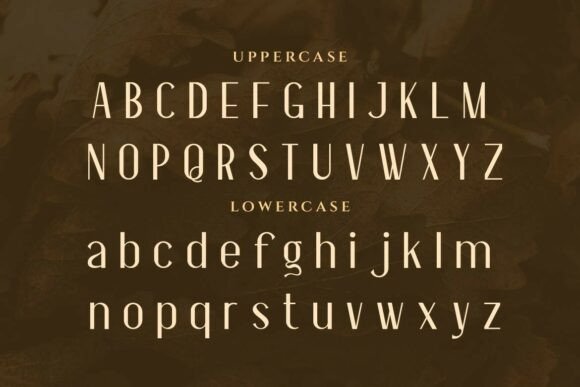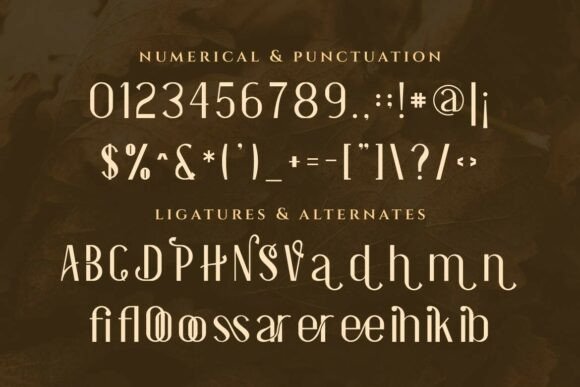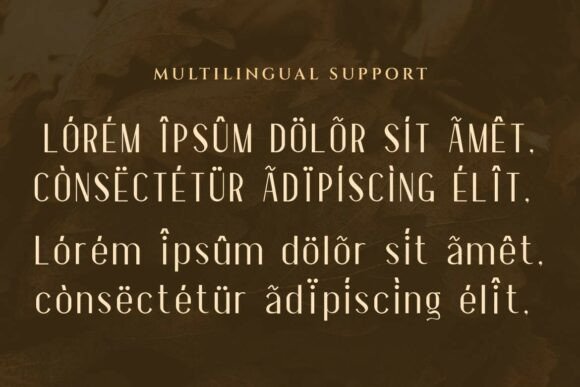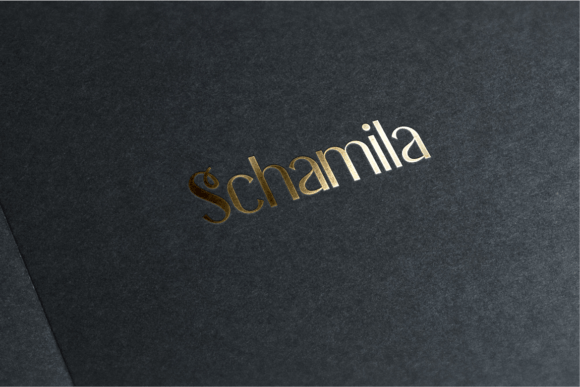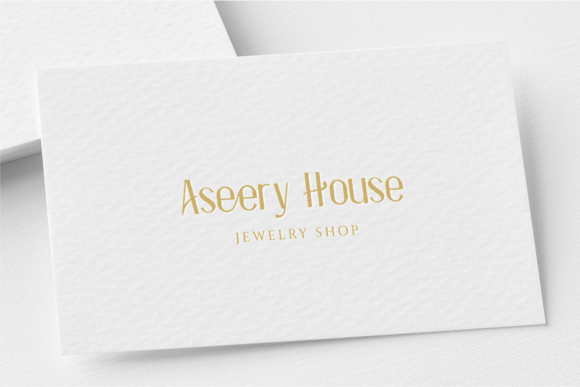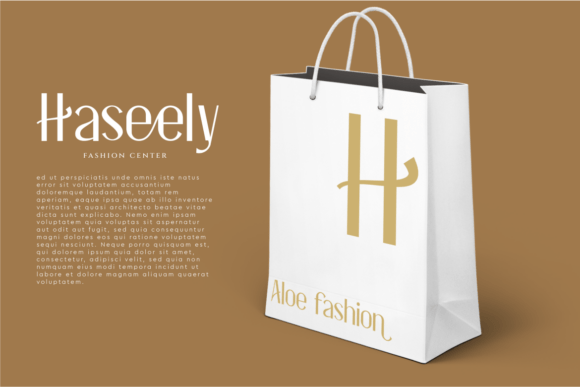
Introducing Essentials Font: The Epitome of Modern Femininity
In the realm of typography, a font can make or break the visual identity of a brand. For those seeking a typeface that exudes simplicity, grace, and quiet confidence, Essentials Font is the perfect solution. This modern feminine sans serif font has been meticulously designed to cater to the needs of beauty branding, fashion editorials, social media content, product packaging, and lifestyle blogs.
Design Philosophy
Essentials Font is built on the principles of minimalism and elegance. Its smooth curves and balanced letterforms create a harmonious visual experience that is both soothing and sophisticated. The font’s design philosophy revolves around the idea of understated luxury, making it an ideal choice for brands that want to convey refinement and poise.
- Smooth Curves: Essentials Font boasts smooth, flowing curves that add a touch of femininity to any design.
- Balanced Letterforms: The font’s letterforms are carefully crafted to ensure balance and harmony, making it perfect for body text and headlines.
- Minimalistic Aesthetic: Essentials Font’s minimalist design ensures that it can be used in a variety of contexts, from digital media to print materials.
Use Cases
Essentials Font is a versatile typeface that can be used in a multitude of applications. Some of the most popular use cases include:
- Beauty Branding: Essentials Font is perfect for beauty brands that want to convey a sense of luxury and sophistication.
- Fashion Editorials: The font’s elegant design makes it an excellent choice for fashion editorials and magazine spreads.
- Social Media Content: Essentials Font can be used to create engaging social media content that resonates with audiences.
- Product Packaging: The font’s minimalist aesthetic makes it an excellent choice for product packaging, particularly for brands that want to convey a sense of high-end quality.
- Lifestyle Blogs: Essentials Font is perfect for lifestyle blogs that focus on fashion, beauty, and wellness.
Essentials Font offers a range of benefits for designers and crafters, including:
- Easy to Read: The font’s clear and balanced design ensures that it is easy to read, even at small sizes.
- Highly Versatile: Essentials Font can be used in a variety of contexts, from digital media to print materials.
- Customizable: The font can be customized to suit specific design needs, making it an excellent choice for brands that want to create a unique visual identity.
In conclusion, Essentials Font is a modern feminine sans serif font that embodies simplicity, grace, and quiet confidence. Its smooth curves, balanced letterforms, and minimalistic aesthetic make it perfect for a range of applications, from beauty branding to lifestyle blogs. With its ease of readability, versatility, and customizability, Essentials Font is an excellent choice for designers and crafters seeking a high-quality typeface that can elevate their designs.